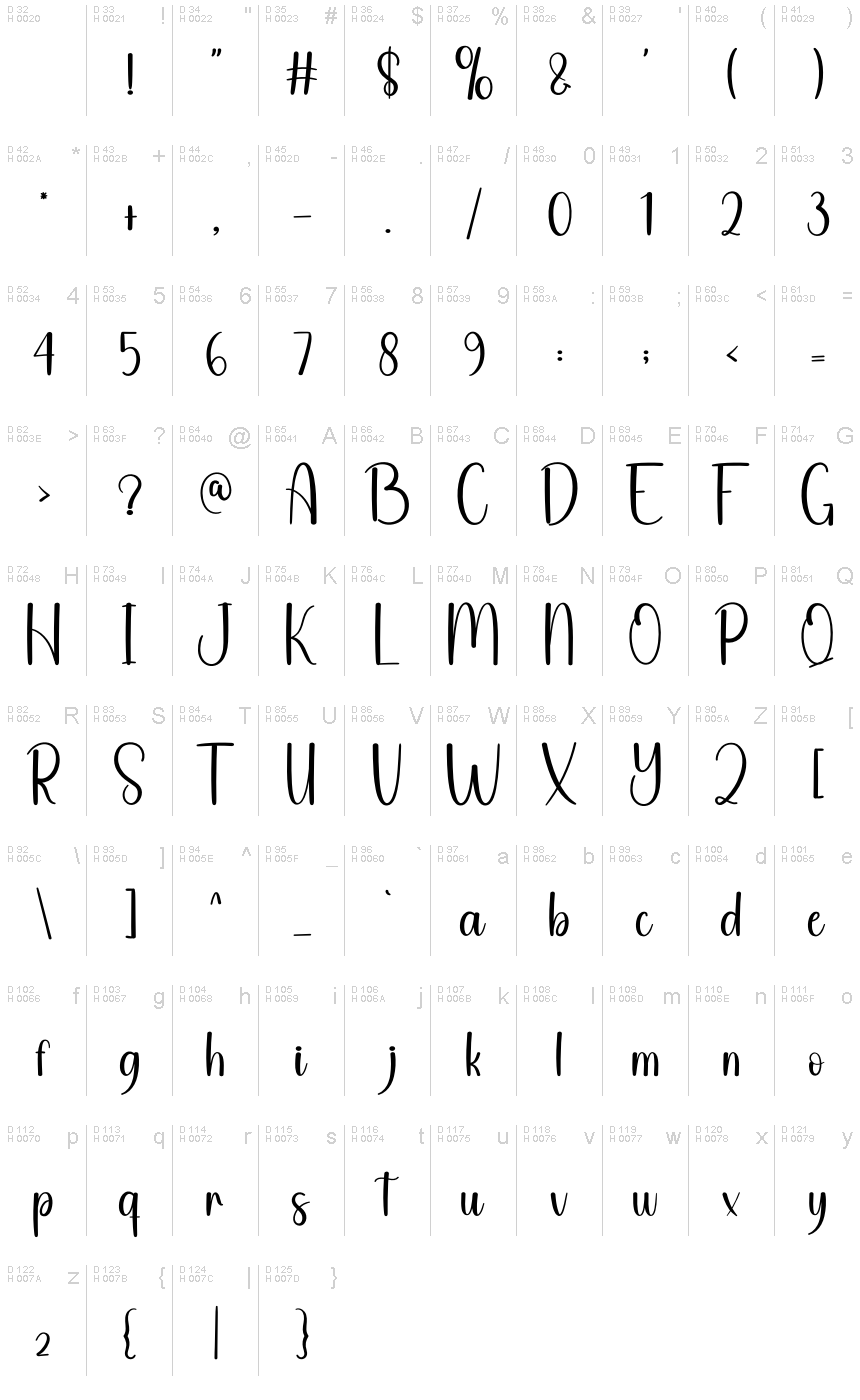
Cheeper
Cheeper is a striking handwritten font that exudes a captivating sense of movement and fluidity. Designed by Andi Moz, this font boasts a playful, organic aesthetic that seamlessly blends the charm of handcrafted calligraphy with a modern, refined sensibility. The fluid, cursive strokes and distinctive character shapes give Cheeper a unique personality, making it an excellent choice for a wide range of design applications, from editorial layouts and branding to packaging and social media content.
Cheeper's versatility lies in its ability to convey both a sense of warmth and sophistication, making it a versatile tool in the designer's arsenal. Its natural, expressive quality lends itself beautifully to projects that require a personal, handcrafted touch, while its refined, polished appearance ensures a professional, contemporary feel.